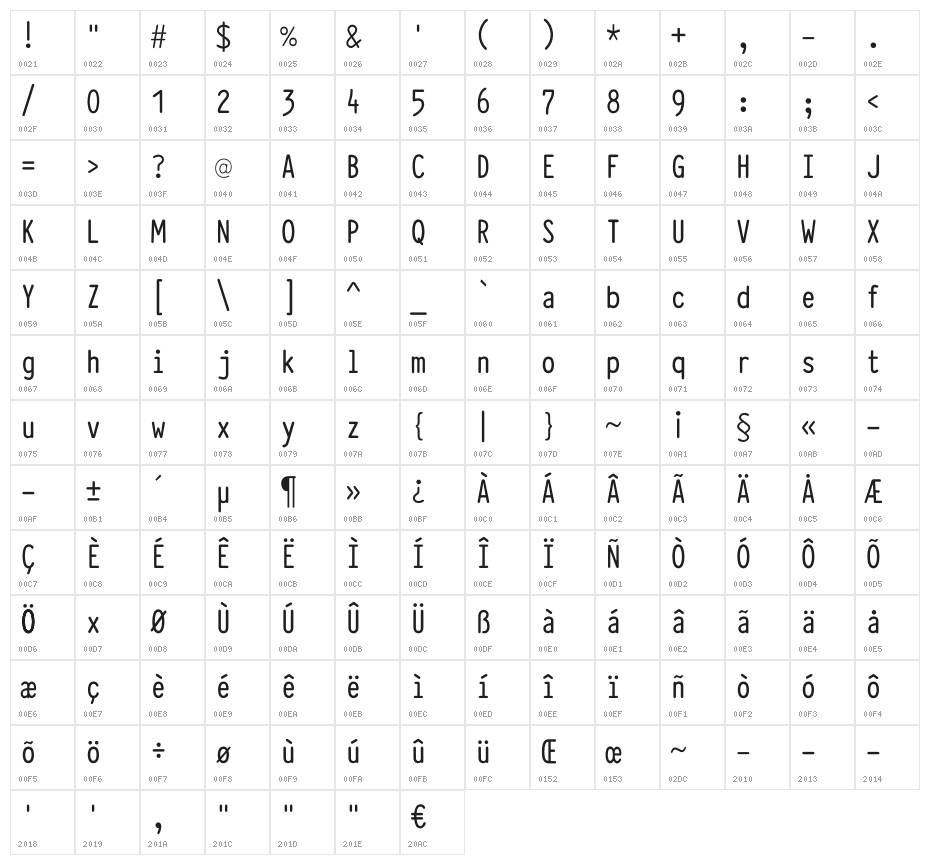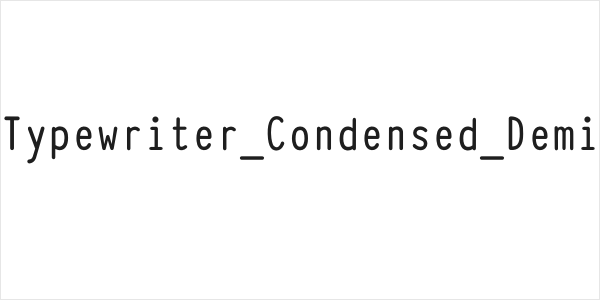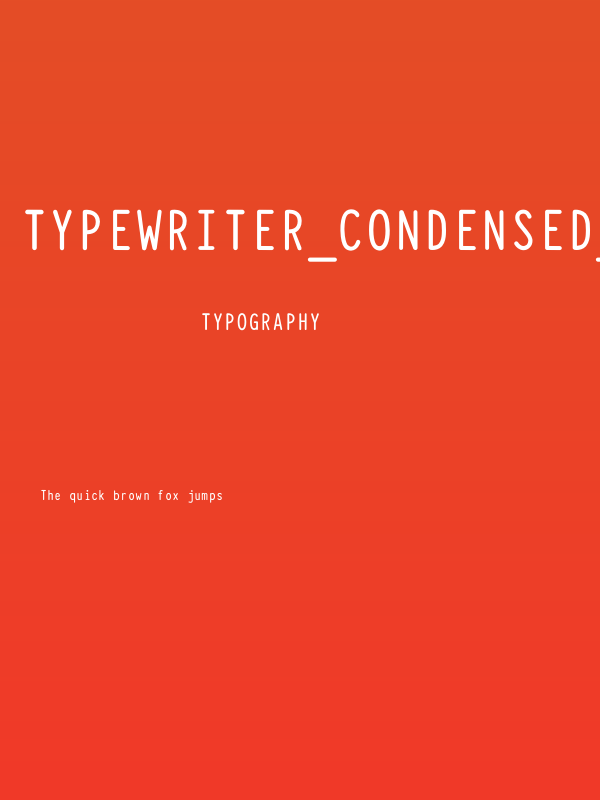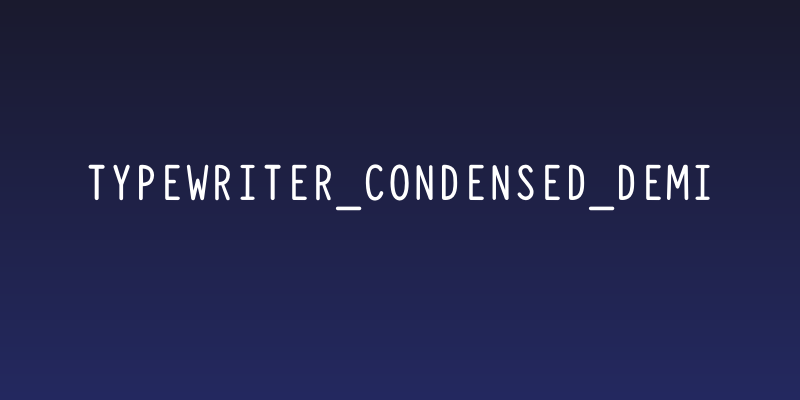
Typewriter_Condensed_Demi Font
Typewriter_Condensed_Demi Description
This font features a condensed style with a monospaced appearance reminiscent of classic typewriter fonts. The characters are evenly spaced, providing a uniform and structured look. The strokes are consistent in width, offering a clean and straightforward aesthetic. The uppercase letters are bold and prominent, while the lowercase letters maintain a similar weight, ensuring readability and balance. The numerals are clear and distinct, making them suitable for data presentation. Special characters are well-defined, enhancing the font's versatility. Overall, this font combines a vintage typewriter feel with modern clarity.
WidthCondensed
Character SpacingNormal
ContrastLow
Overall StyleVintage
Use CaseTechnical documents, Coding, Retro designs
Proposed ProjectsIdeal for coding environments, retro-themed designs, technical documents, and any project requiring a vintage typewriter aesthetic.